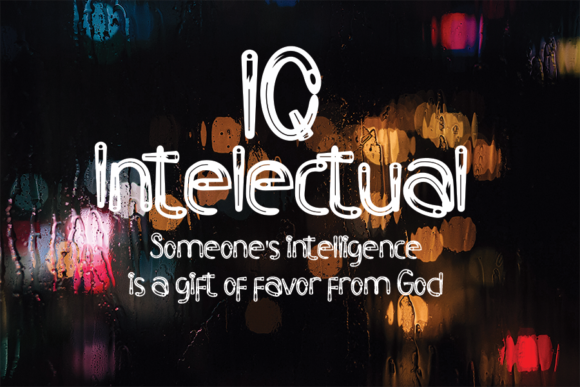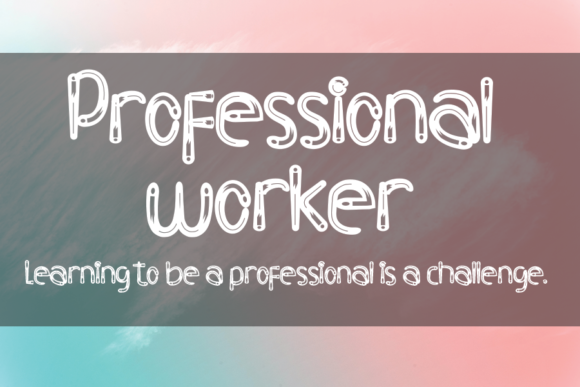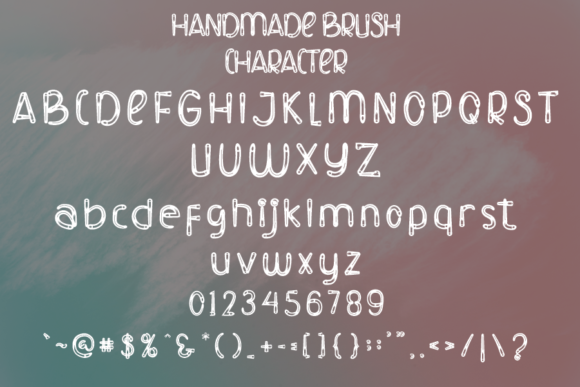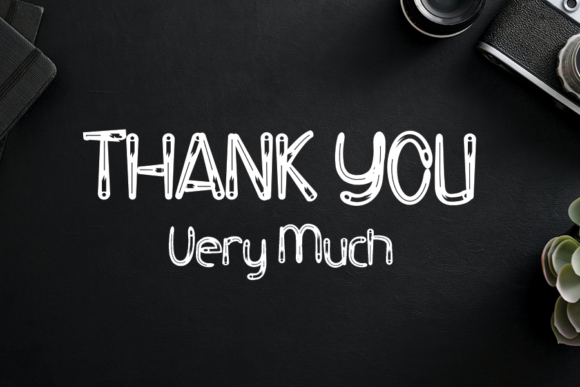
Introduction to Handmade Brush Font Font
Fonts play a crucial role in design, and the Handmade Brush Font font is a typeface that brings both character and versatility to any project. Whether you’re working on a branding project, a website, or a print design, the Handmade Brush Font font offers a unique style that can elevate your work.
Handmade Brush is an eye-catching display font.
Get creative with its unique look, and use it to brighten up any crafting project .
Key Features of Handmade Brush Font Font
Why Choose Handmade Brush Font Font?
The Handmade Brush Font font is more than just a typeface – it’s a design tool that helps you communicate your message with style and clarity. Its unique character set and versatile design make it suitable for a wide range of applications, from elegant invitations to bold headlines.
With its carefully crafted letterforms and balanced proportions, the Handmade Brush Font font ensures readability and visual appeal across all mediums.
What makes Handmade Brush Font font special?
The Handmade Brush Font font stands out with its unique design, exceptional readability, and versatility across various design applications.